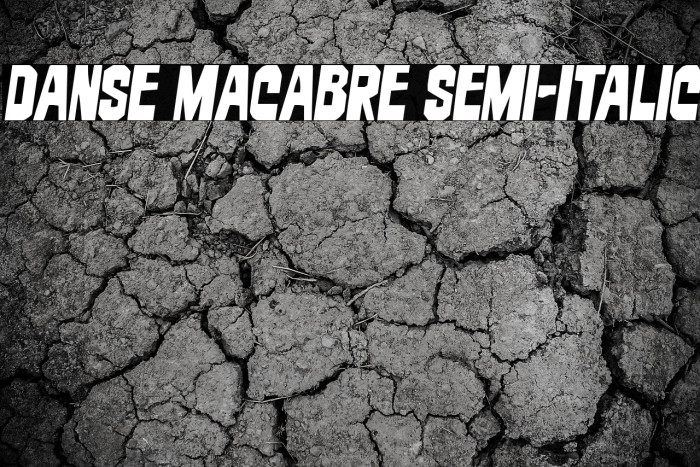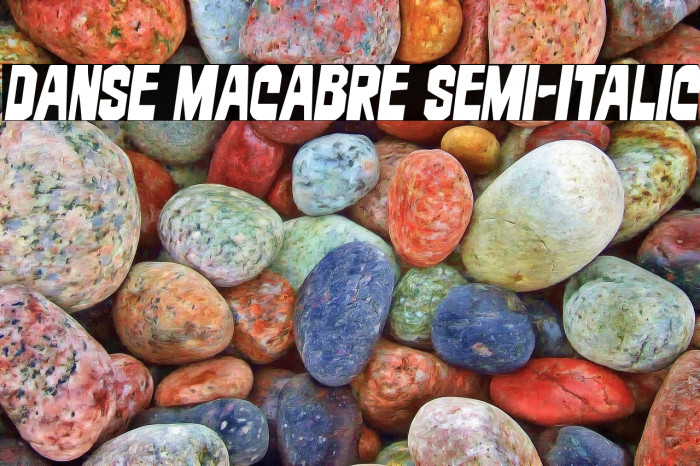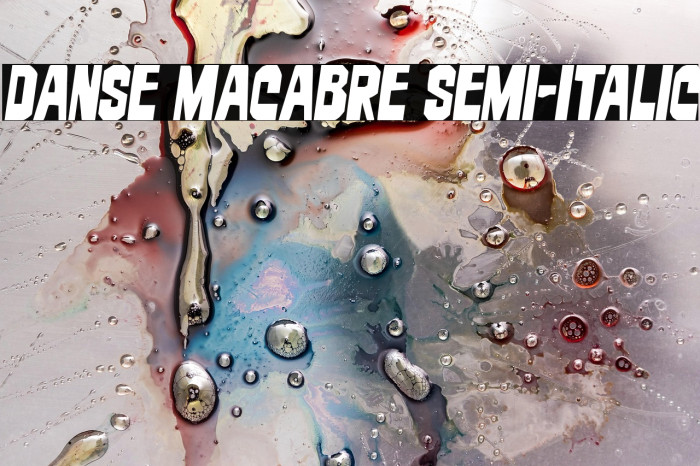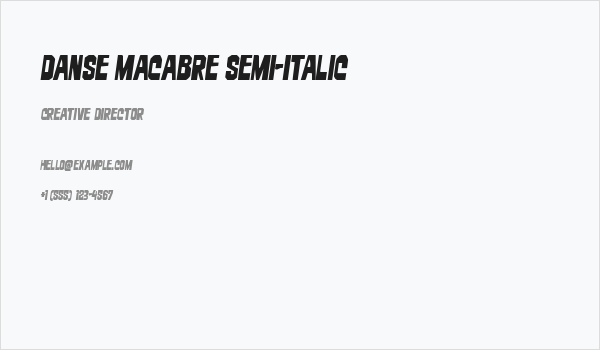
Danse Macabre Semi-Italic Font
Danse Macabre Semi-Italic Description
This font exhibits a bold and dynamic style with a semi-italic slant, giving it a sense of movement and energy. The characters are sharply angled, creating a striking and modern appearance. The uppercase letters are particularly prominent, with a strong presence that commands attention. The numbers and special characters maintain the same boldness, ensuring consistency across all glyphs. This font's unique style makes it suitable for projects that require a bold statement or a modern, edgy look.
| Proposed Projects | Ideal for posters, logos, and branding materials that require a bold and modern aesthetic. |